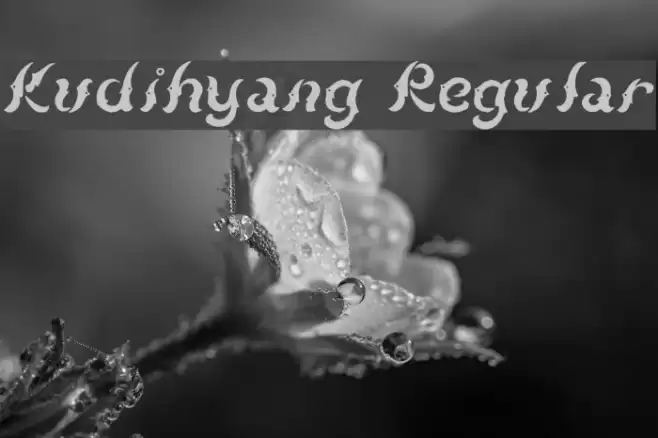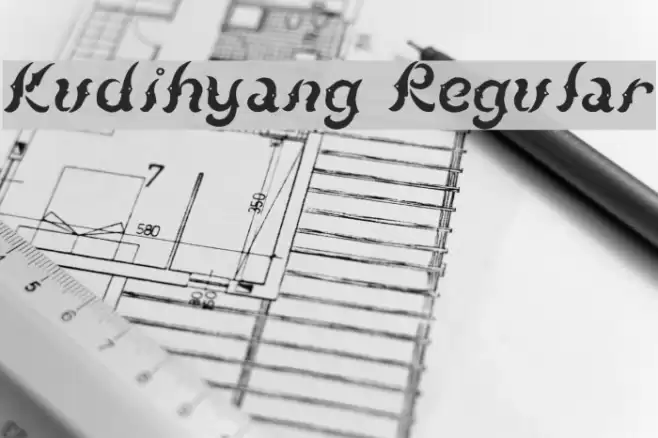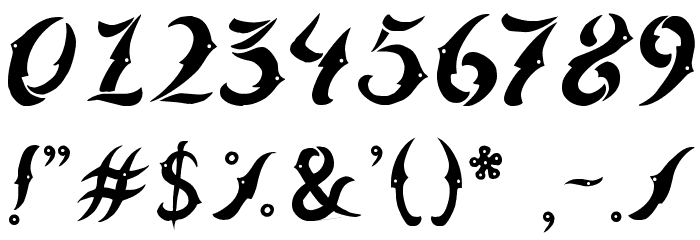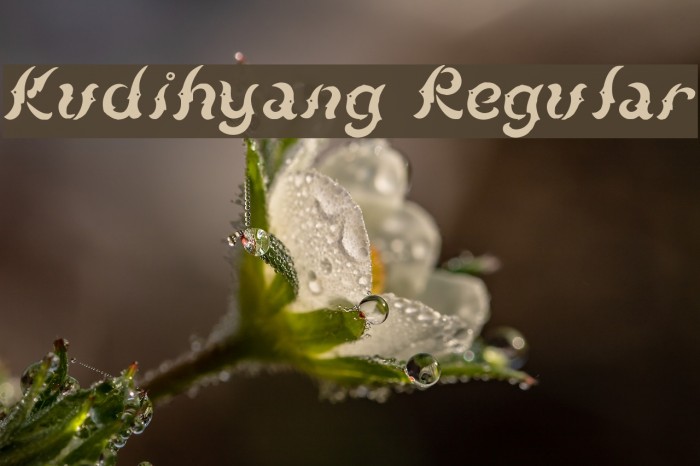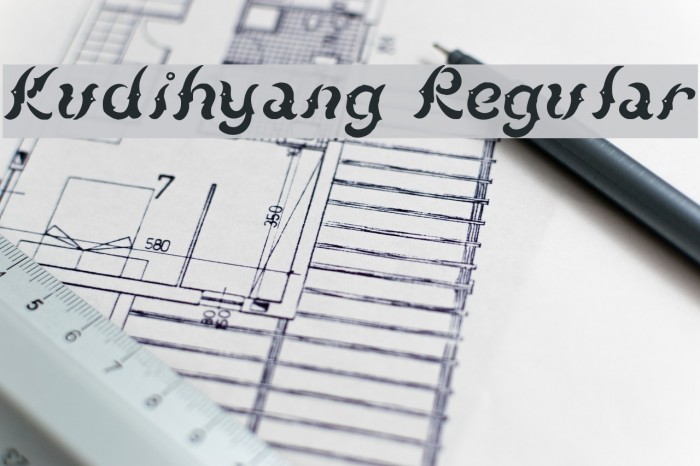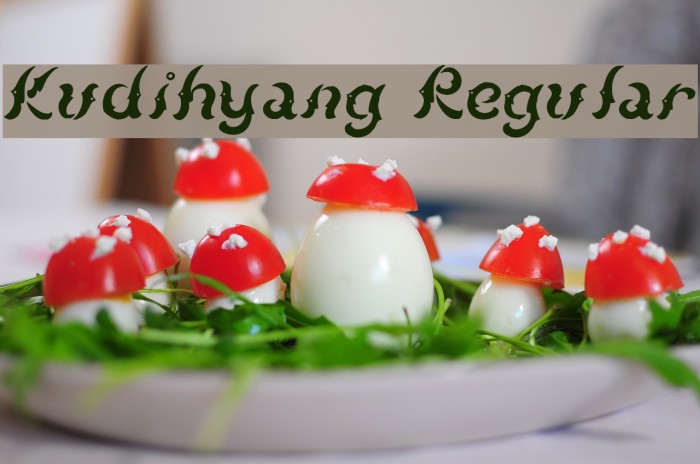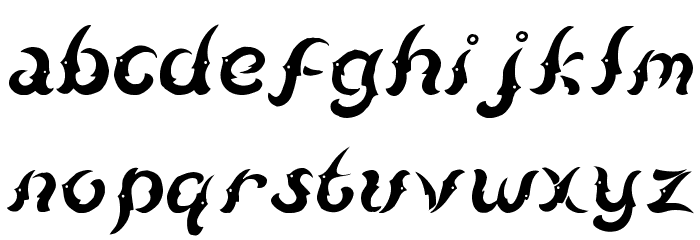
Kudihyang Regular Font
Kudihyang Regular Description
This font exhibits a unique and artistic style, characterized by its bold, flowing strokes and intricate detailing. The letters are designed with a sense of movement, featuring sharp, pointed serifs and dramatic curves that give it a dynamic and elegant appearance. The uppercase and lowercase letters maintain a consistent style, with the uppercase being slightly more pronounced. Numbers and special characters follow the same design principles, ensuring a cohesive look across all elements. The overall aesthetic is both decorative and sophisticated, making it suitable for projects that require a touch of elegance and flair.
A bold, artistic font with flowing strokes and intricate detailing from Decorative fonts.
- Proposed Projects: Ideal for invitations, branding, logos, and decorative headings.
- Use Case: Logos, Headlines, Invitations